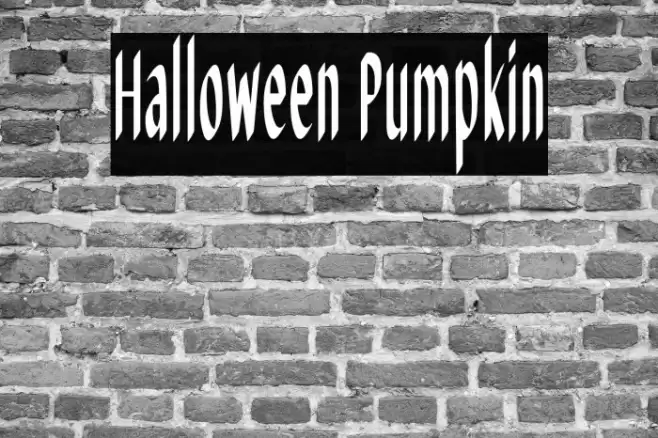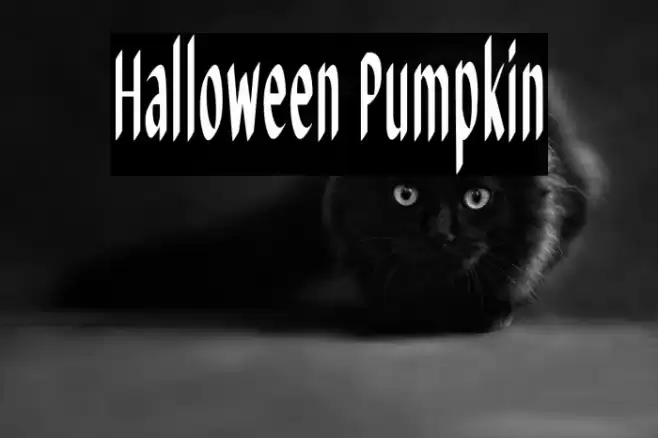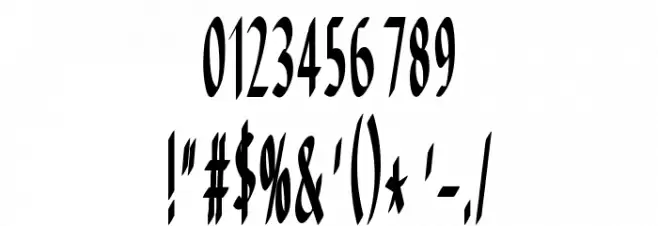
Halloween Pumpkin Font
Halloween Pumpkin Description
This font features a playful and slightly spooky design, perfect for Halloween-themed projects. The letters have a whimsical, jagged appearance, reminiscent of carved pumpkins or eerie shadows. The uppercase and lowercase characters maintain a consistent style, with sharp angles and uneven strokes that add to the font's quirky charm. Numbers and special characters follow the same design principles, ensuring a cohesive look across all text elements. The font's unique style makes it ideal for capturing attention and adding a festive touch to any design.
A playful, spooky font with jagged, uneven strokes, perfect for Halloween themes from Regular fonts.
- Proposed Projects: Ideal for Halloween invitations, themed posters, party decorations, and spooky branding.